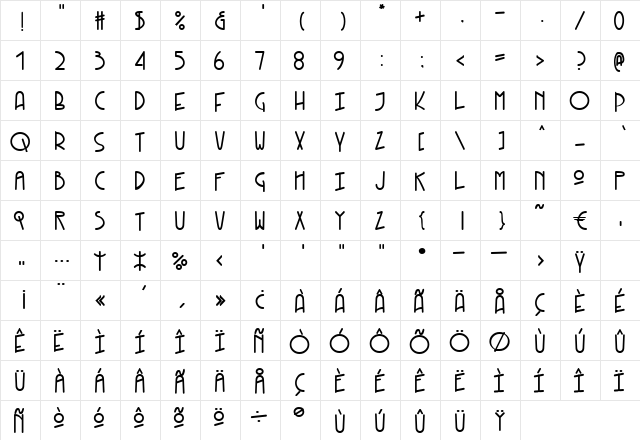
Ornament Regular
Design Context for Ornament Typeface
Ornament brings ornamental detail and strong personality to headlines and identities, where visual impact matters more than quiet functionality.
Font Pairing: Pair with a clean neutral sans-serif for body copy to let Ornament's character lead without overwhelming the composition.
Pro Tip: Treat Ornament as the centrepiece of your typographic hierarchy. One strong heading set in a decorative face can carry an entire layout.